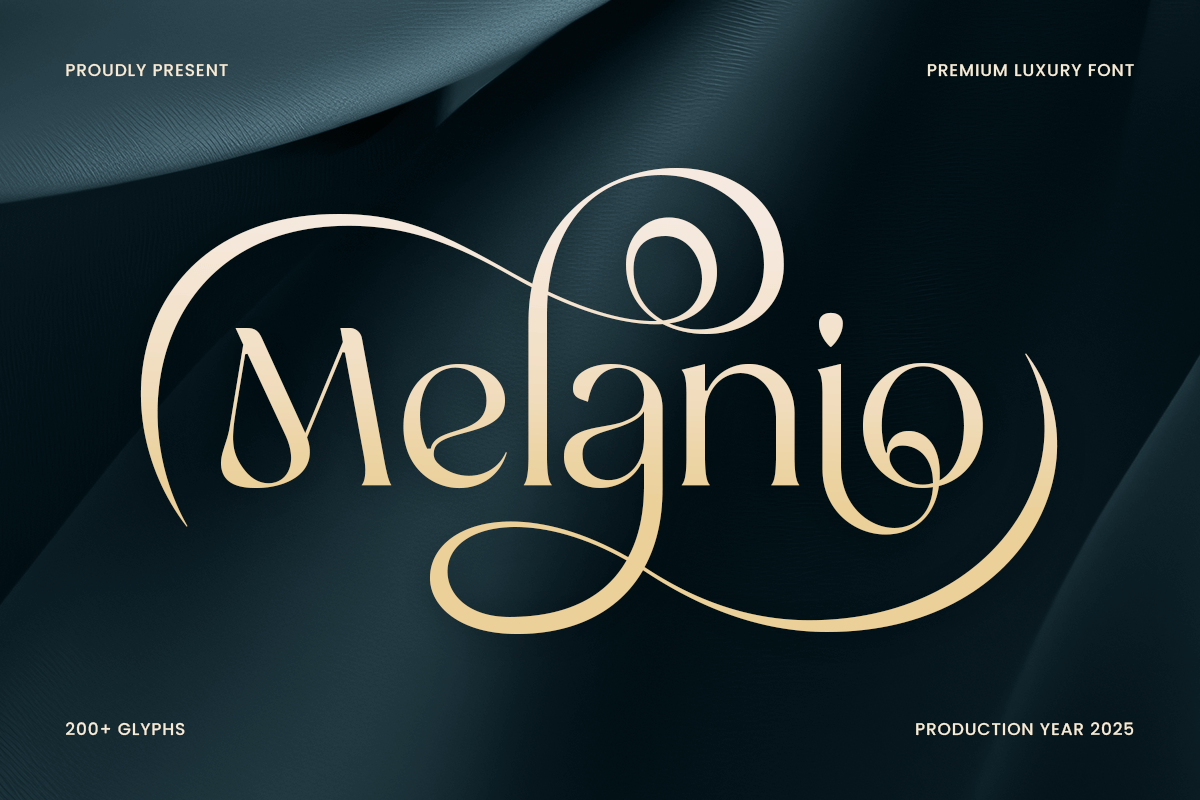
Melanio
-Modern Elegant Serif FontMelanio - Modern Elegant Serif Font
Melanio is a premium luxury font that exudes elegance, sophistication, and timeless appeal. Perfect for high-end branding, luxury logos, and upscale design projects, Melanio offers a refined serif style that commands attention while maintaining grace and class.
Whether you're designing for luxury brands, upscale hospitality services, or elegant product packaging, Melanio adds a touch of exclusivity to every project. Its stylish curves and balanced letterforms ensure that your designs feel both premium and professional, making it the ideal choice for the most discerning clients.
Melanio – Premium Luxury Font Features
Elegant and refined letterforms with a luxury aesthetic
Perfect for upscale branding, logos, and editorial design
Sleek, high-end design with timeless appeal
OpenType features for advanced typographic styling